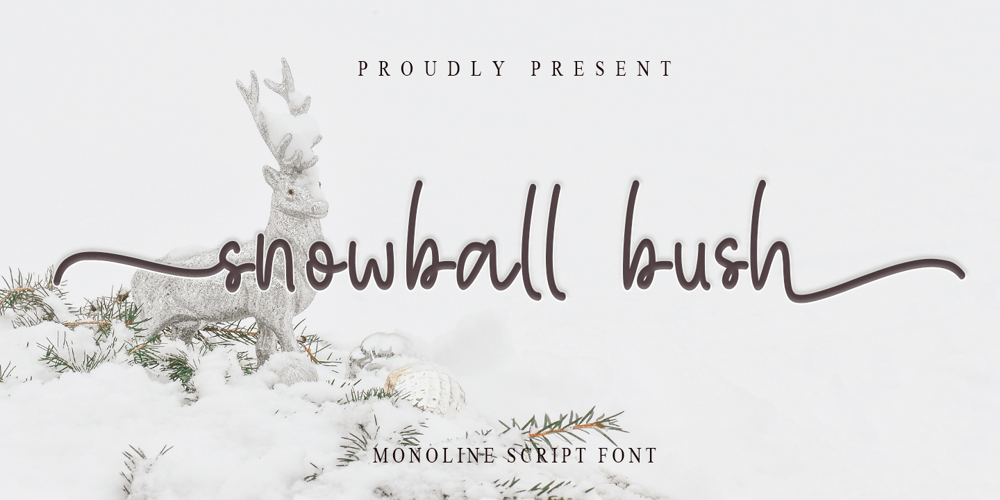
Snowball Bush
Snowball Bush font
Snowball Bush Font Family was designed by Thomas Aradea and published by Letterara. Snowball Bush contains 1 styles and family package options. Snowball Bush is the perfect handwritten font: Elegant, Sweet, innocent, light, and charming, this one-of-a-kind typeface will add a unique charm to any design project!Snowball Bush font was created to look as close to a natural handwritten script as possible. With built-in Opentype features, this script comes to life as if you are writing it yourself. You can see it in the picture shown.This font is PUA encoded which means you can access all of the glyphs and swashes with ease! It features a varying baseline, gorgeous glyphs, and stunning alternates.